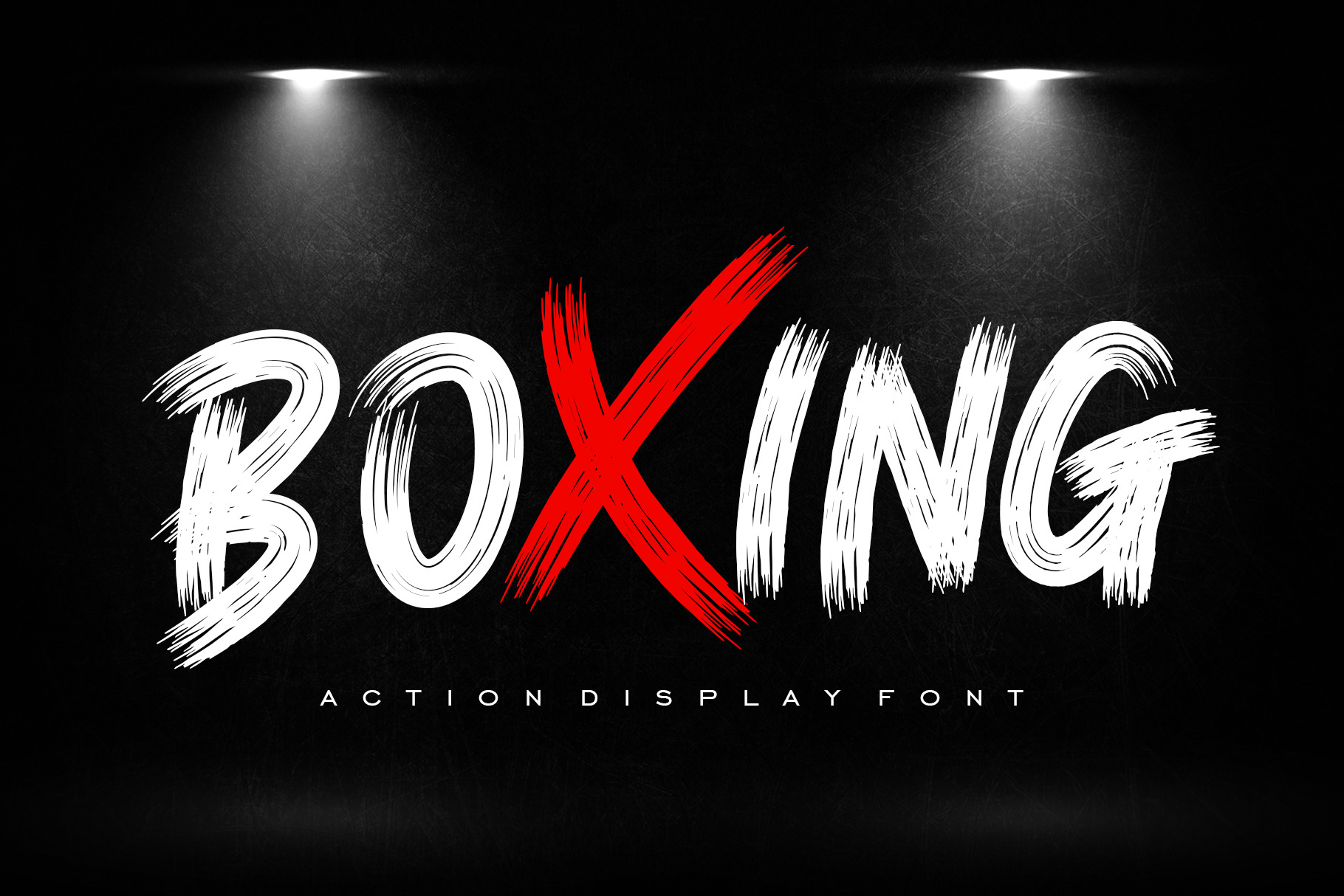
Boxing - Action Display Font
Boxing is a powerful and full-of-energy brush display font. Inspired by various actions and challenges this font is perfect for a variety of projects that require strength and courage.